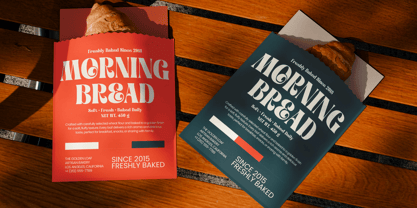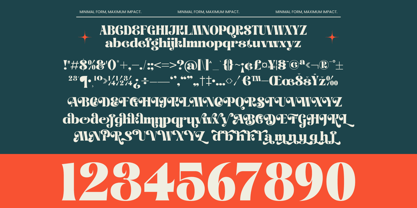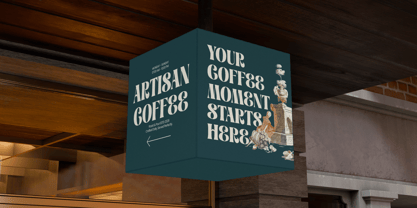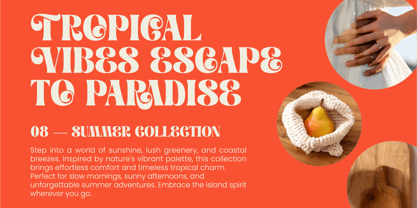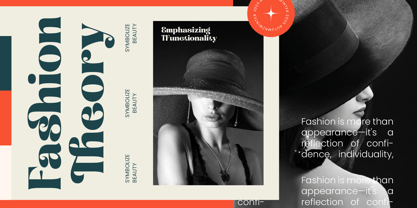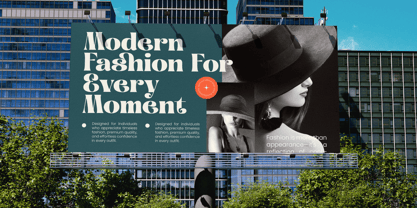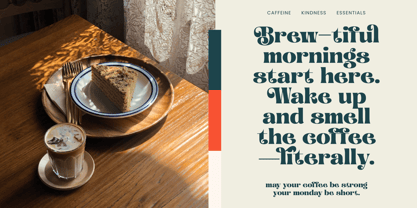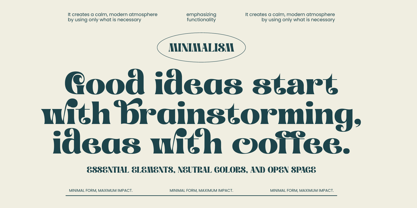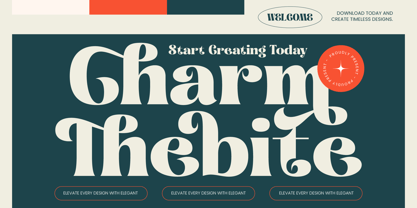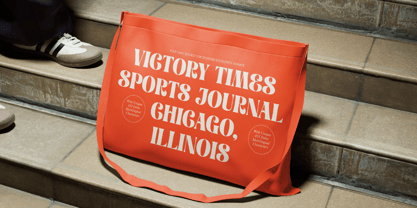
Charm Thebite
La familia tipográfica Charm Thebite fue diseñada por Heru Utama Putra y publicada por Timelesstype Studio. Charm Thebite contiene 2 estilos y opciones de paquete familiar. Más información sobre esta familia
Redefine visual storytelling with the striking elegance of Charm Thebite - Modern Retro Serif. This typeface masterfully bridges the gap between vintage-inspired nostalgia and contemporary minimalism, offering a high-contrast design that commands immediate attention. Its fluid, organic curves and bold serif structures make it an essential tool for designers seeking to infuse their work with a luxurious and timeless feel.